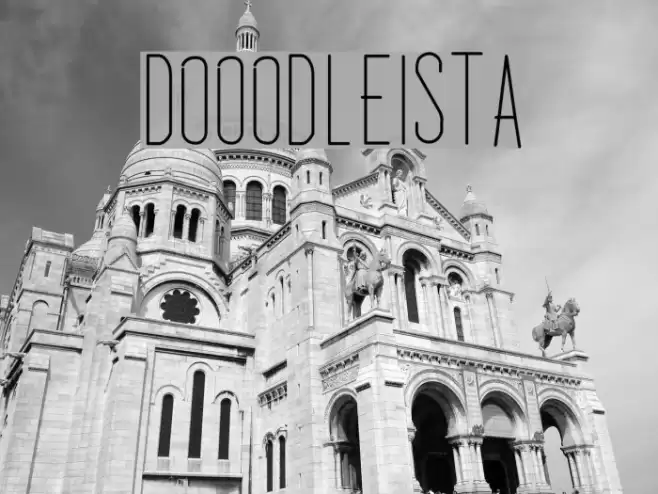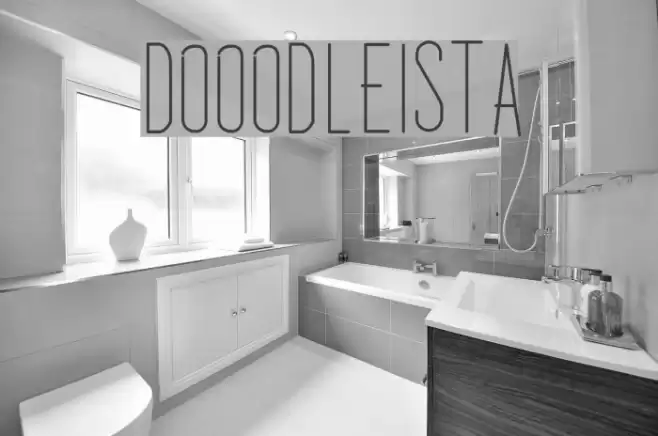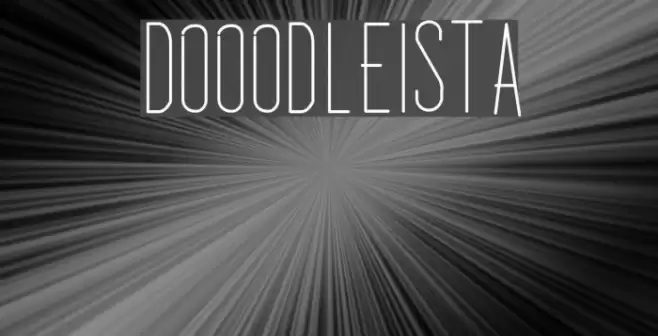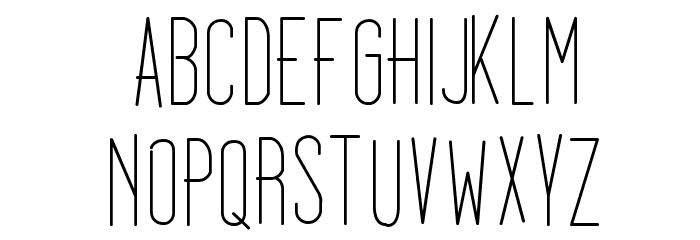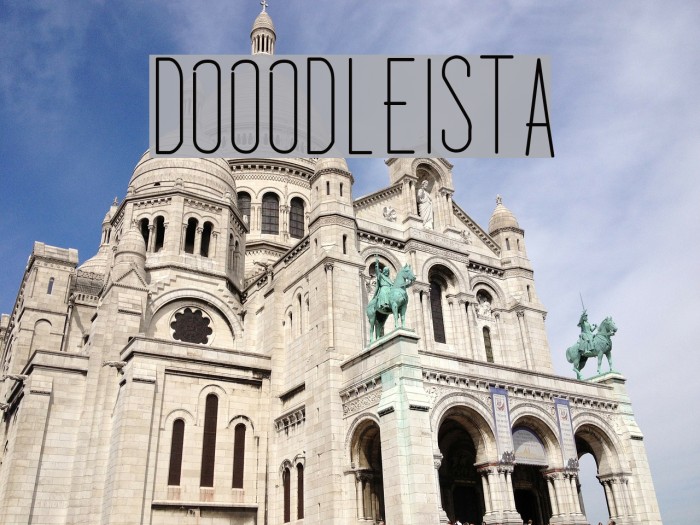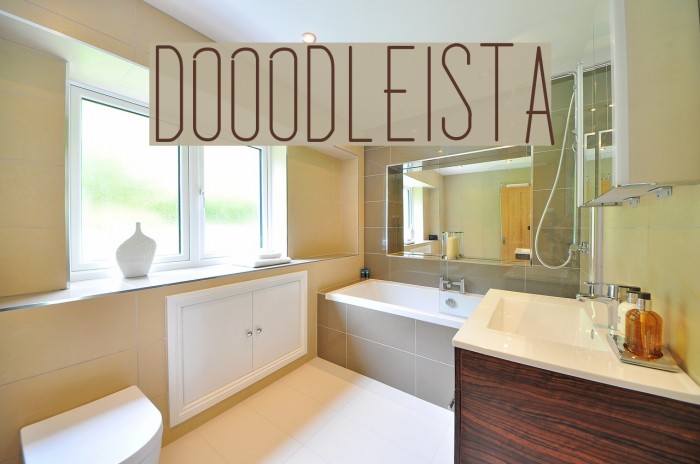
Dooodleista Font
Dooodleista Description
This font features a tall, narrow design with clean, straight lines and minimal curves, giving it a modern and sleek appearance. The characters are consistently thin, contributing to a light and airy feel. The vertical alignment is precise, and the overall structure is geometric, with a slight emphasis on verticality. The spacing between characters is tight, enhancing the condensed look. This font is well-suited for creating a sophisticated and contemporary aesthetic, making it ideal for projects that require a stylish and elegant touch.
A tall, narrow, and modern font with clean lines and tight spacing from Uncategorized fonts.
- Proposed Projects: Ideal for fashion magazines, luxury branding, minimalist posters, and modern web design.
- Weight: Light
- Character Spacing: Tight